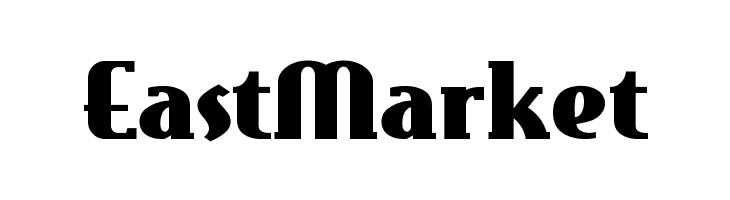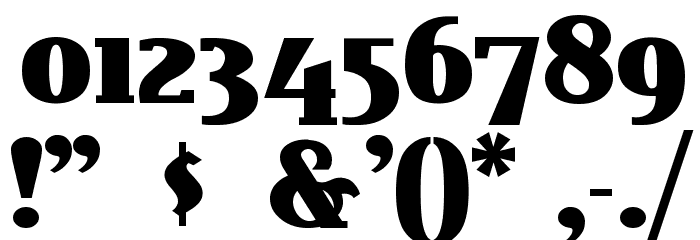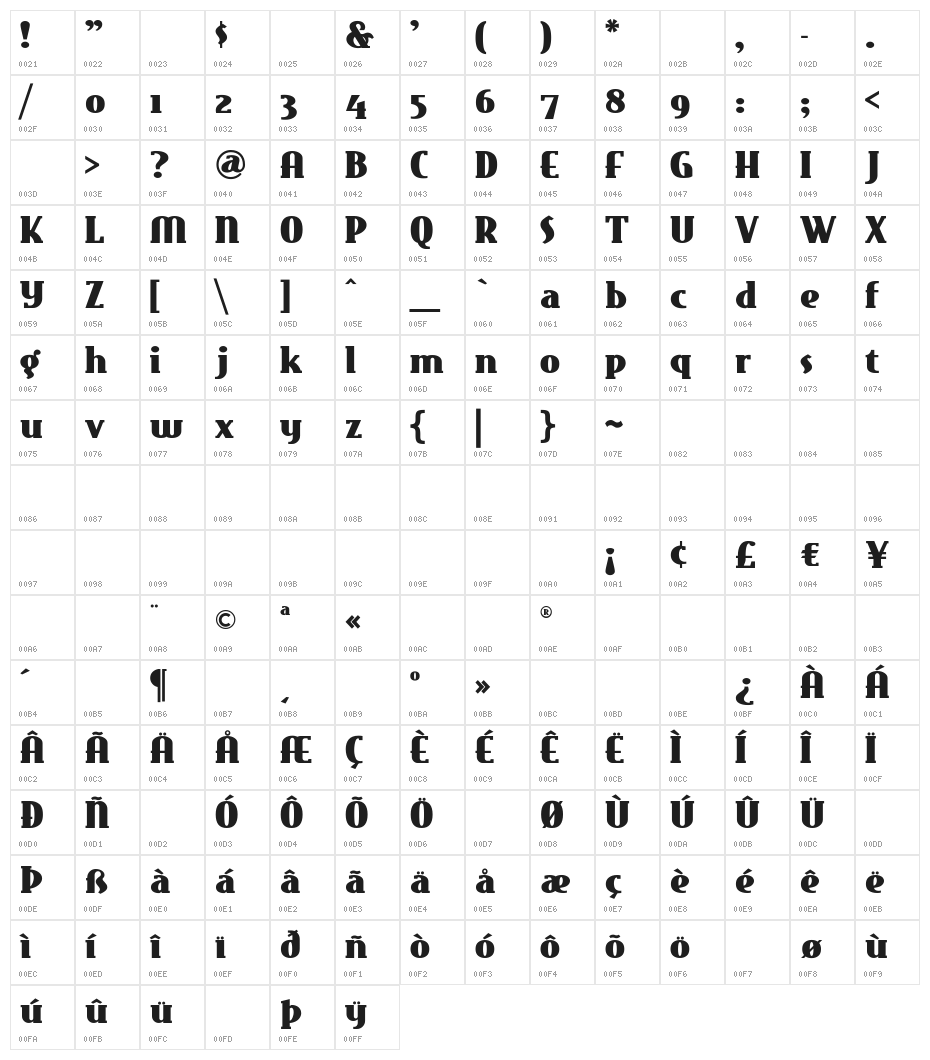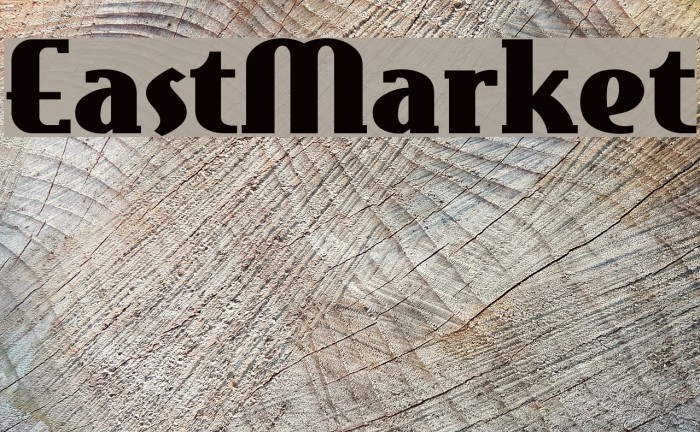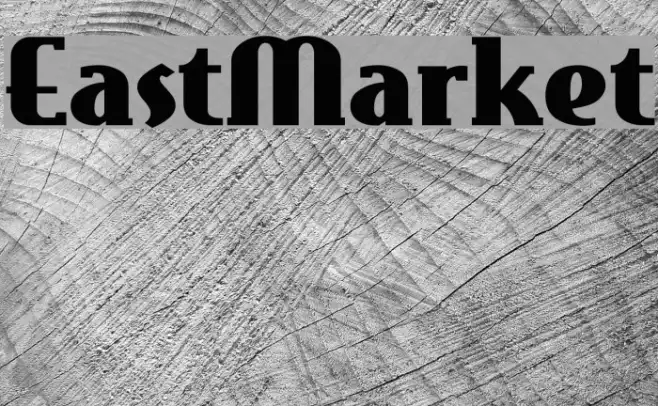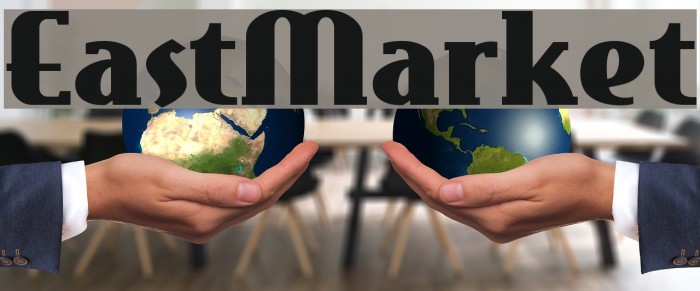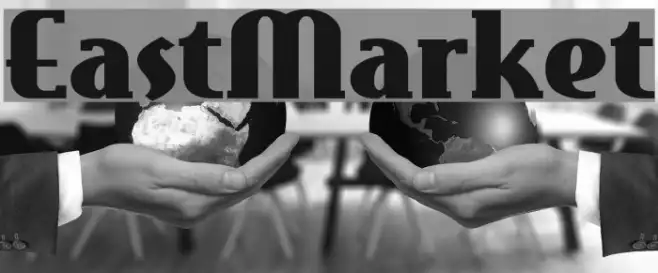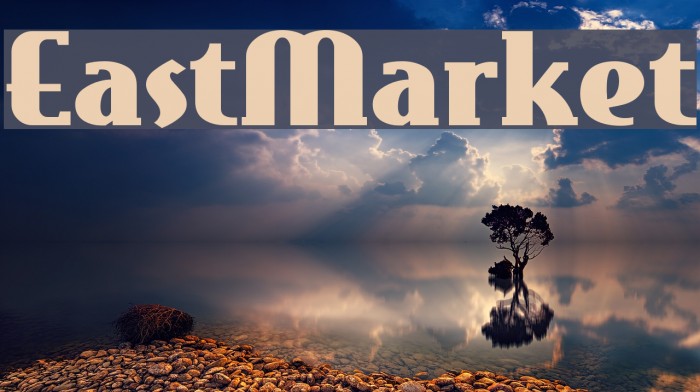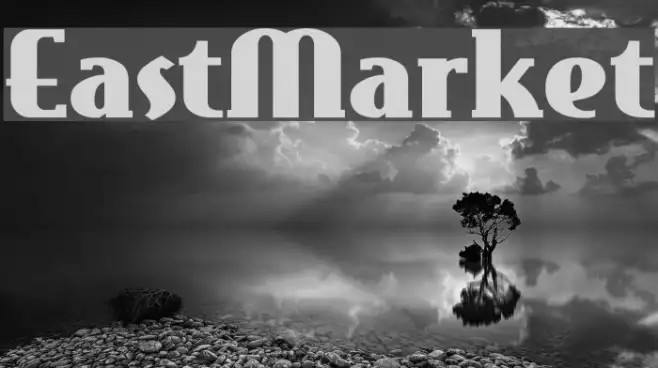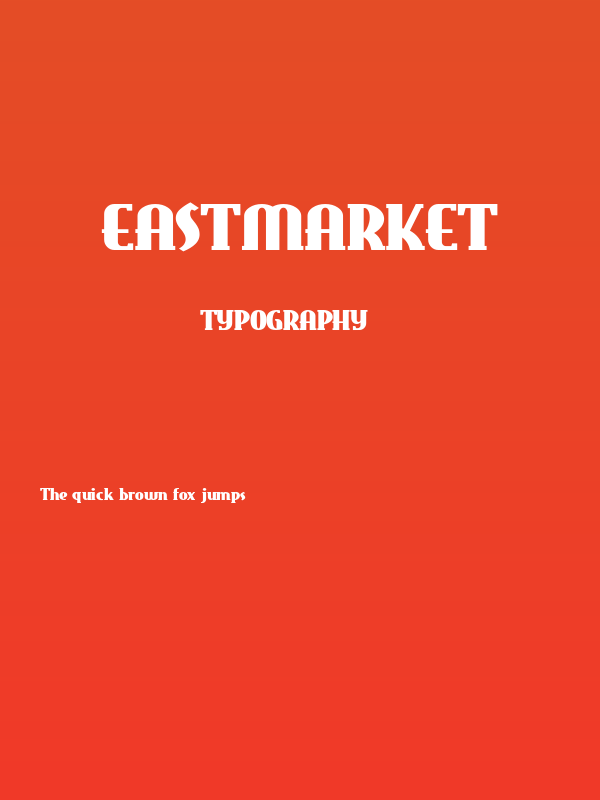
EastMarket Font
EastMarket Description
This font features a bold and striking design with a strong presence, characterized by thick, block-like serifs and a high contrast between thick and thin strokes. The uppercase letters are particularly dominant, with a slightly condensed appearance that adds to their impact. The lowercase letters maintain the boldness, offering a consistent look across the typeface. Numbers and special characters are equally robust, ensuring readability and emphasis. The overall style is reminiscent of vintage and retro aesthetics, making it suitable for projects that require a touch of nostalgia or a bold statement.
| Proposed Projects | Ideal for branding, poster design, headlines, and any project requiring a vintage or retro feel. |